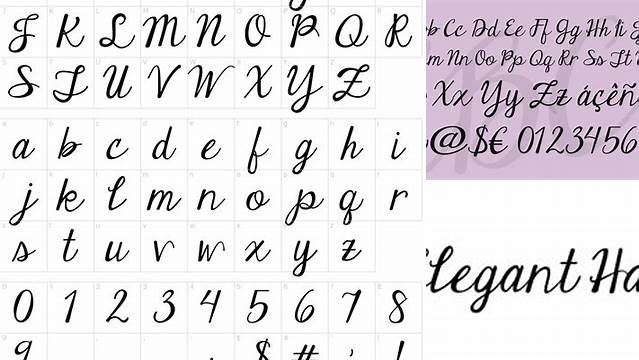
Hey guys! Looking for that perfect elegant touch for your projects? You've come to the right place! The Janda Elegant Handwriting Font is a total game-changer when you need a script font that feels both personal and polished. Whether you're designing wedding invitations, crafting logos, or adding flair to your social media graphics, this font can seriously elevate your work. Let’s dive into everything you need to know about the Janda Elegant font, how to download it for free, and how to make the most of it in your designs.
1. What is Janda Elegant Handwriting Font?
The Janda Elegant Handwriting Font is a beautifully crafted script typeface that mimics natural handwriting. It's designed to bring a touch of authenticity and sophistication to any project. The flowing lines and delicate curves give it a refined yet approachable feel, making it ideal for a wide range of applications. This font stands out because it doesn't look overly manufactured; it genuinely feels like someone has penned it with care. This authenticity is what makes it so versatile and appealing for various design needs.
This font is more than just a pretty script; it’s a tool for communication. Its elegant strokes convey a sense of grace and style, which is perfect for projects aiming to exude class and professionalism. Whether you’re working on a branding project or a personal invitation, the Janda Elegant font adds a layer of sophistication that’s hard to ignore. Its readability is also a major plus, ensuring your message is not only beautiful but also clear and easy to understand. This balance between aesthetics and functionality is what makes it a top choice for designers and creatives.
But what truly sets the Janda Elegant Handwriting Font apart is its versatility. It’s not just for formal occasions; it can also bring a touch of elegance to more casual designs. Imagine using it for blog headers, product packaging, or even email signatures. The possibilities are endless. Its charm lies in its ability to adapt and enhance various styles, making it an invaluable asset in any designer's toolkit. So, if you’re looking for a font that combines elegance, readability, and versatility, the Janda Elegant font is definitely worth exploring.
2. Key Features of Janda Elegant Font
The Janda Elegant Handwriting Font comes packed with features that make it a favorite among designers. One of the key highlights is its smooth, flowing lines that create a realistic handwriting effect. These lines aren't just visually appealing; they also ensure that the font remains legible across various sizes and applications. This is crucial, whether you're using it for a large-format print or a small digital graphic. The consistency in its stroke thickness and curvature gives it a polished look, which is essential for maintaining professionalism in your designs.
Another significant feature is its extensive character set. The font includes uppercase and lowercase letters, numerals, punctuation marks, and a variety of special characters. This comprehensive set allows for a wide range of typographical expressions, ensuring you can convey your message exactly as intended. Additionally, many versions of the Janda Elegant font come with ligatures and alternative characters, which add a unique flair and prevent the font from looking repetitive. These extras provide a subtle but impactful way to customize your text and make it stand out. For example, ligatures—where two or more letters are connected—can create a more seamless and natural flow in your text.
Furthermore, the Janda Elegant Font often supports multiple languages, making it a versatile choice for international projects. This feature ensures that your designs can reach a global audience without losing their elegance or readability. The font’s adaptability to different linguistic nuances is a testament to its thoughtful design and broad appeal. In today’s globalized world, having a font that transcends language barriers is a huge advantage. Whether you’re creating content in English, Spanish, French, or another language, the Janda Elegant font is designed to deliver consistent quality and style. Its combination of aesthetic appeal and practical features makes it an excellent choice for any design project.